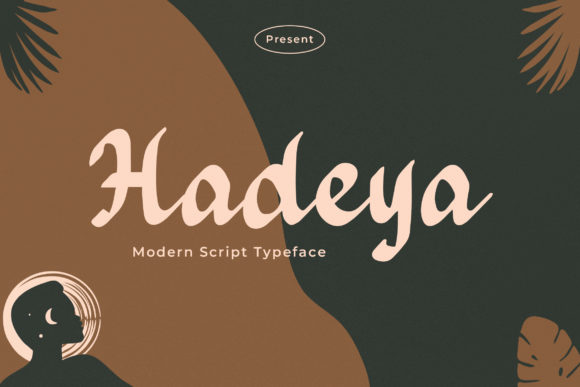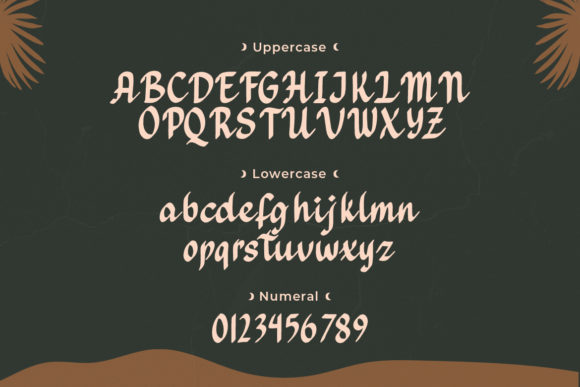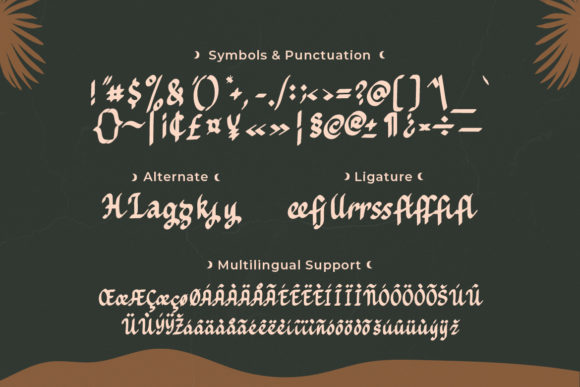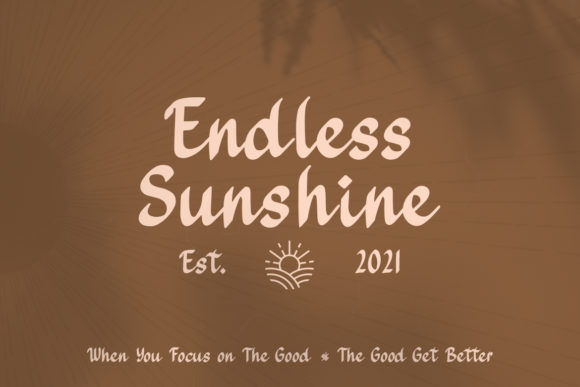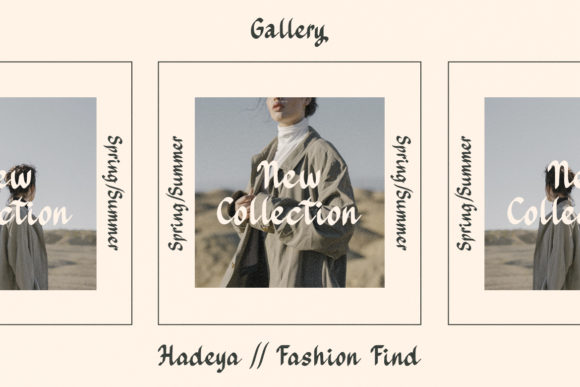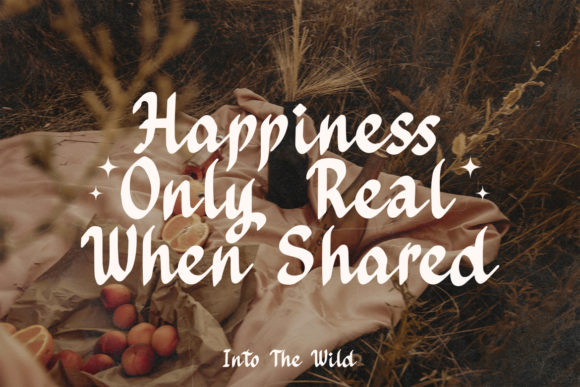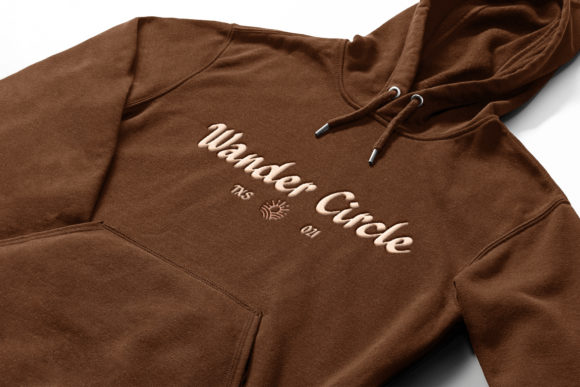
Hadeya Font
About Hadeya Font
Hadeya is a modern paint brushed handwritten font. It looks stunning on wedding invitations, thank you cards, quotes, greeting cards, logos, business cards and every other design which needs a handwritten touch.